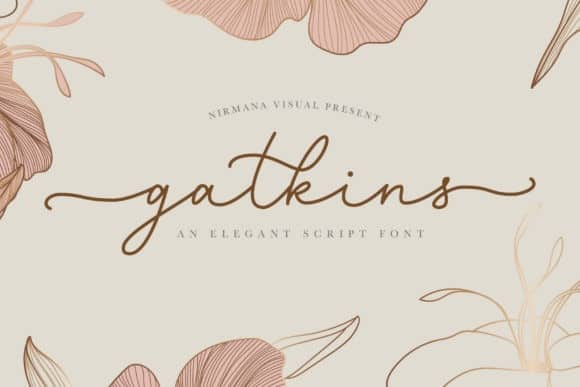
Gatkins Handwritten Font
Hi all!… Gatkins Handwritten Font is a typeface with a continuous handwritten script style. This font is perfect for both professional and branding needs of a product.
It’s designed and shared by sartstudio. Gatkins is a beautiful and romantic scrip typeface. As for print products like as business card, wedding invitation, posters, book cover and many more.
This font is PUA encoded which means you can access all of the cute glyphs and swashes with ease! It also features a wealth of special features including alternate glyphs and ligatures.